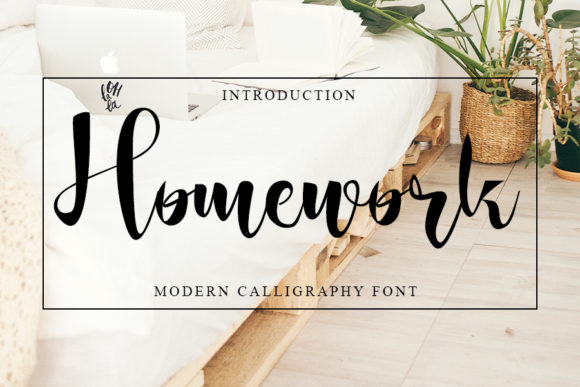
About Homework Font
Homework is an elegant script font with a contemporary atmosphere and impeccable form, inspired by timeless classic calligraphy. Not too thin and not too thick, balanced and varied, Homework was designed to enhance the beauty of your projects.